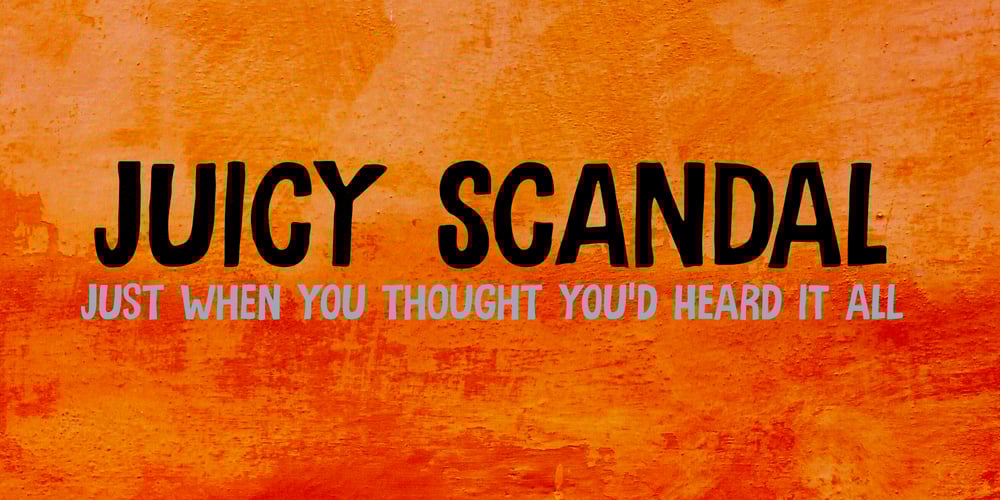
Juicy Scandal Font Family was designed by David Kerkhoff and published by Hanoded. Juicy Scandal contains 2 styles and family package options. I don’t like gossip and I couldn’t care less about celebrity scandals, involving sex, lies and videotape. But a font called Juicy Scandal, however, is something else completely!Juicy Scandal is a hand drawn font, using a roller ball pen and some course paper. This all caps font is a bit rough, but comes with an energetic vibe and a ‘no holds barred’ attitude.Juicy Scandal speaks many languages and has a nice set of contextual alternates for you to discover.–Uppercase